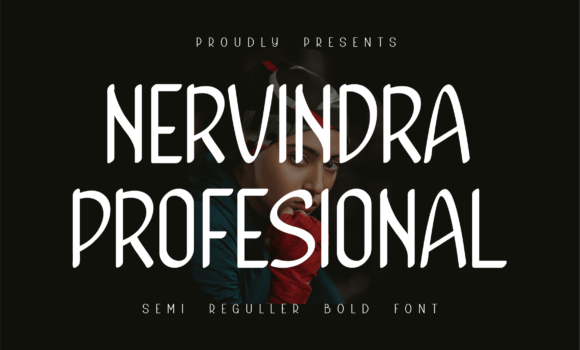
Nervindra Pro Font – Free Download Introduction to Nervindra Pro Font Nervindra is an adrenaline font filled with a victorious spirit. 📸 Preview Gallery 3 images 📌 Product Name Nervindra Pro Font 👤 Author Monoletter 📂 Category Explore ⬇️ Download